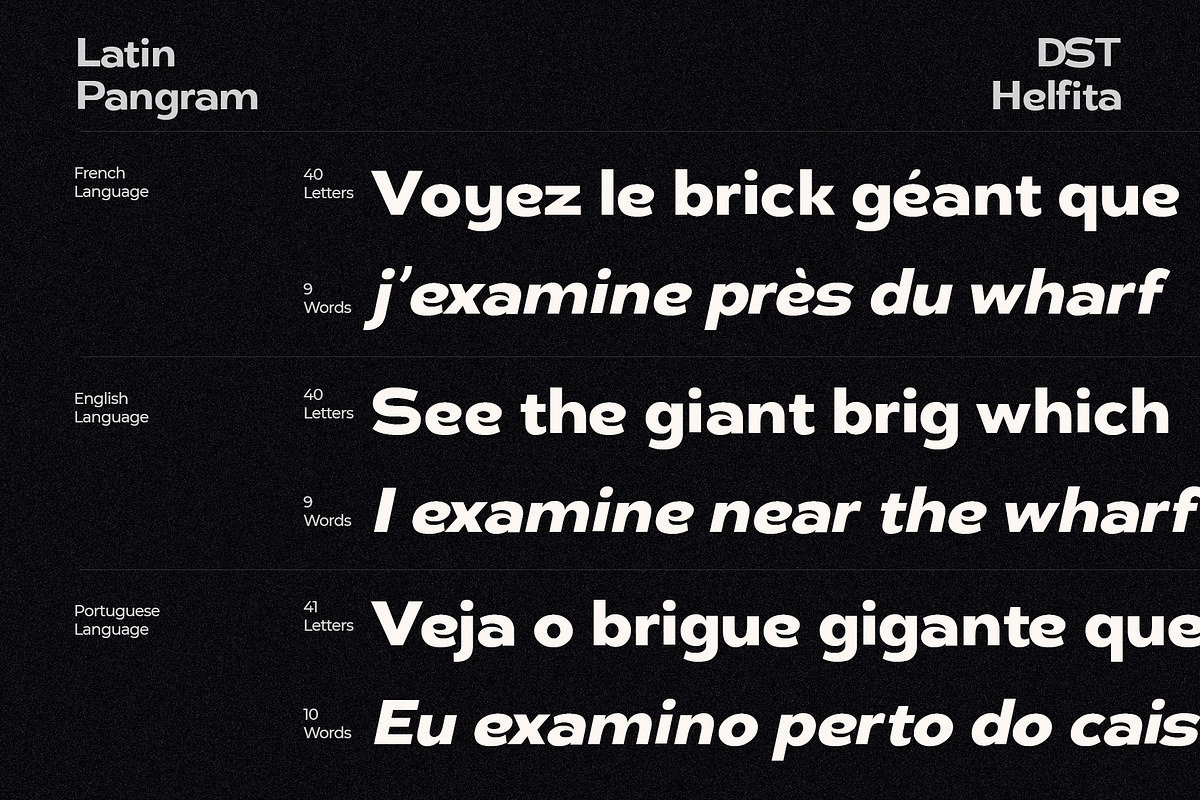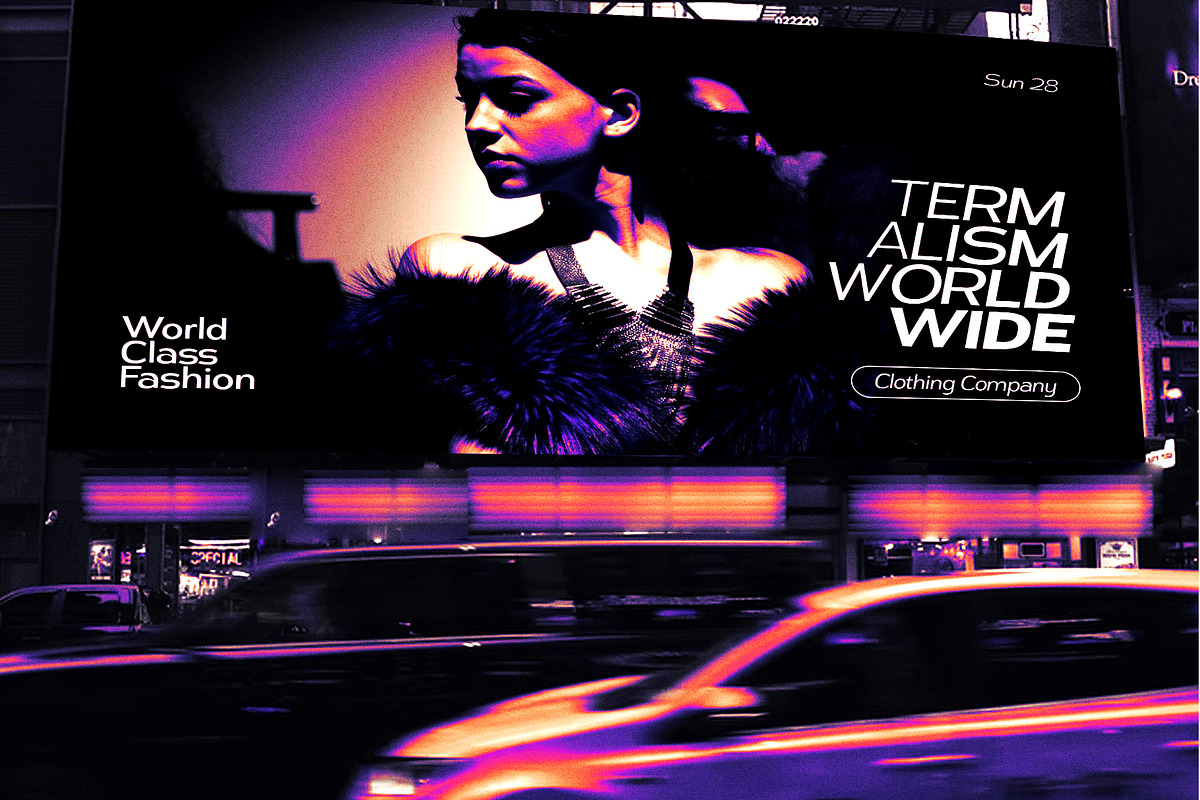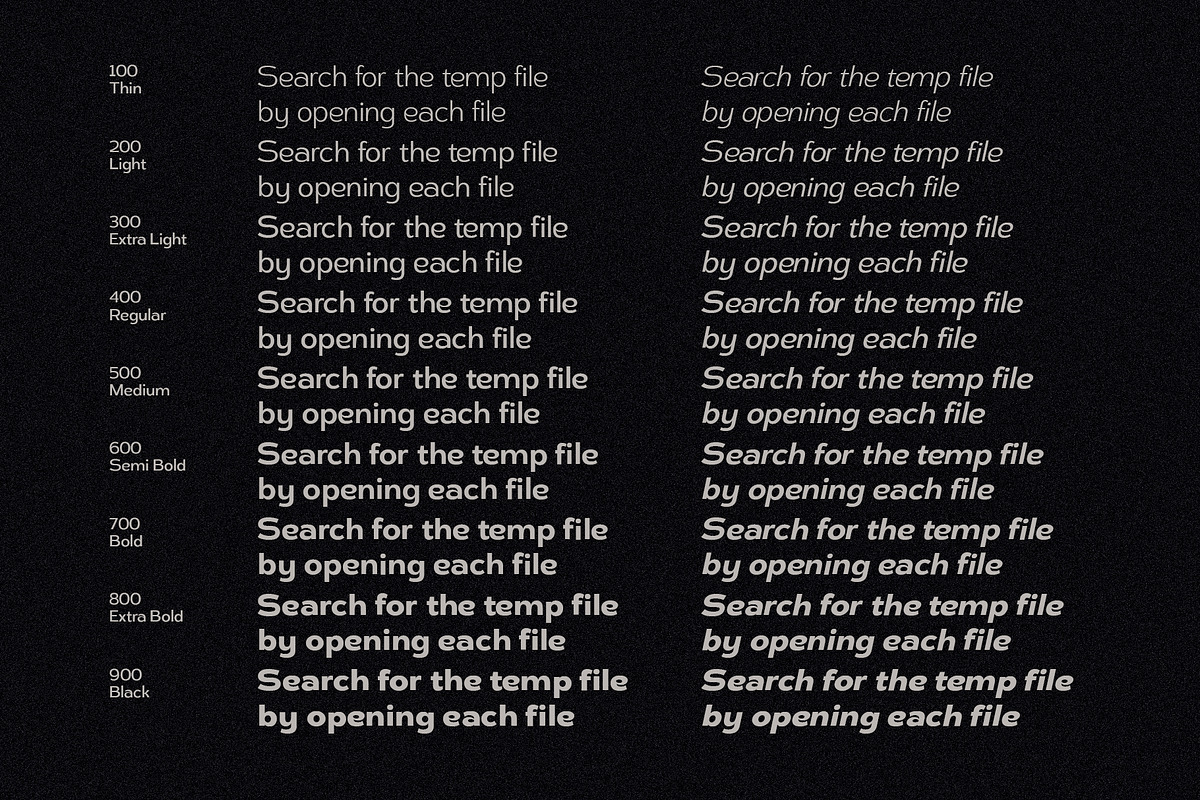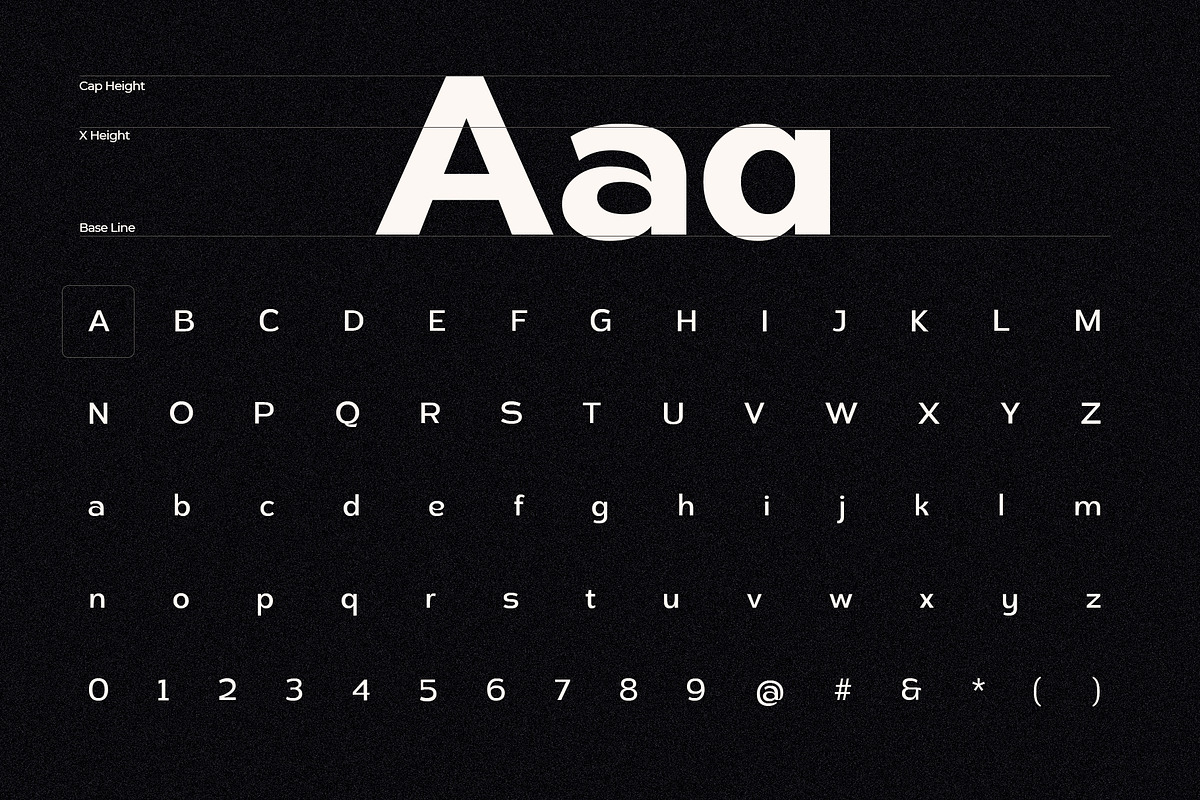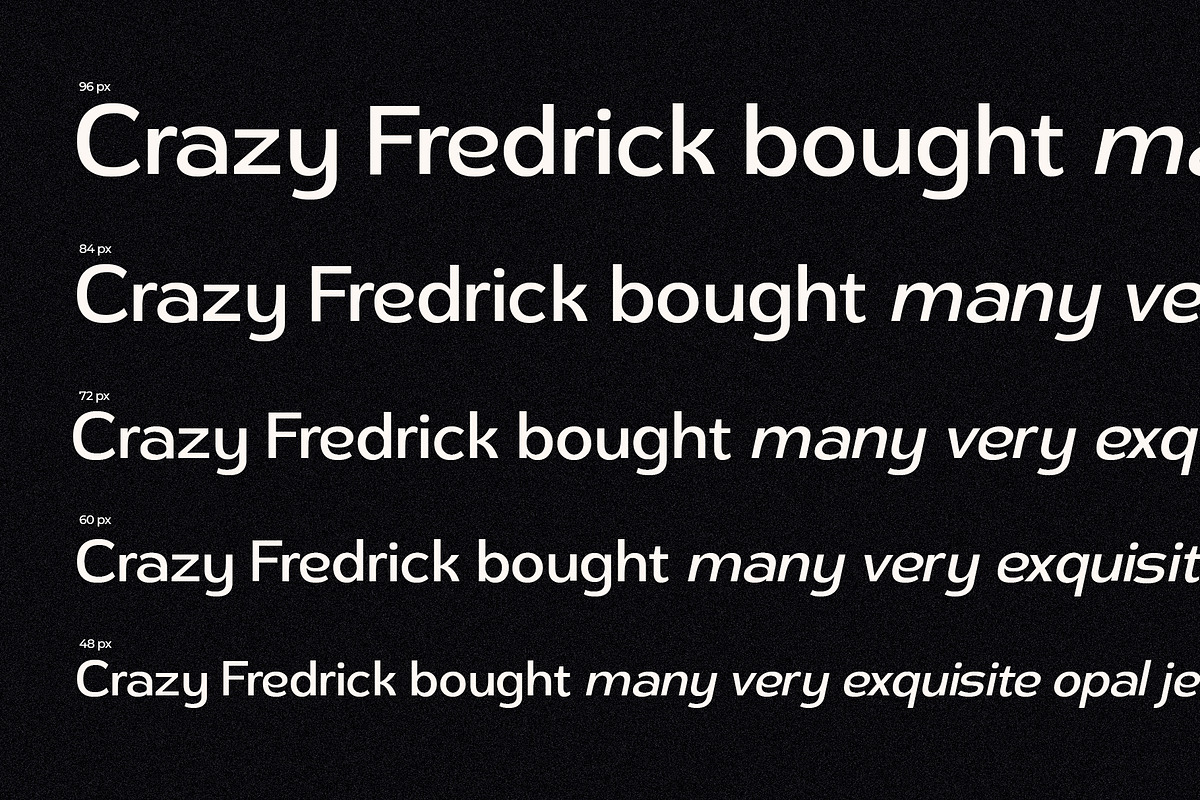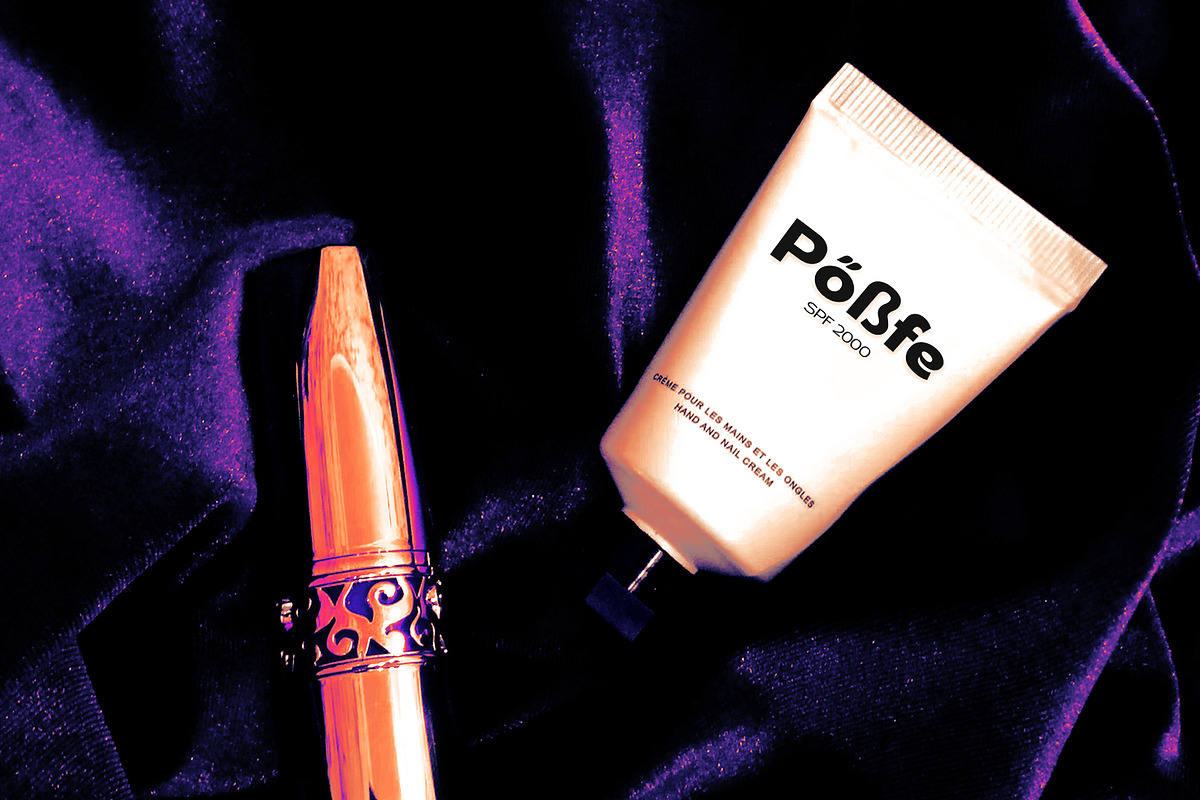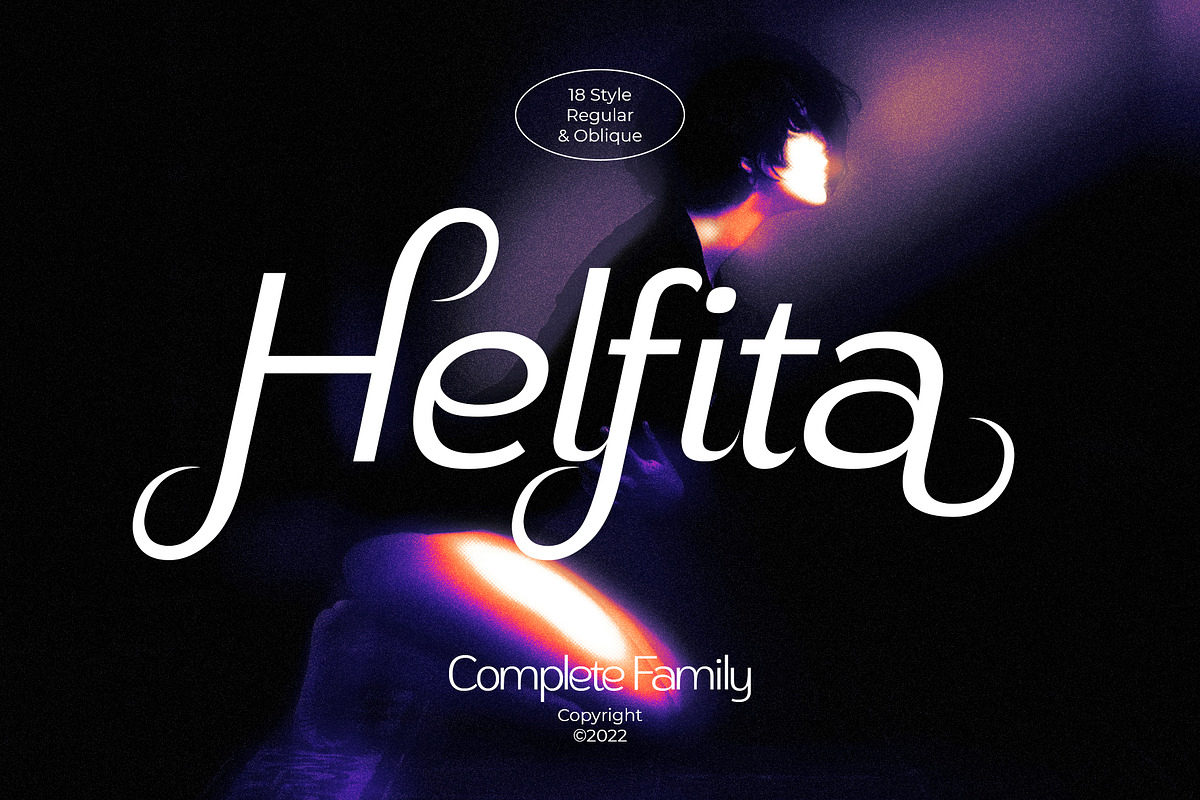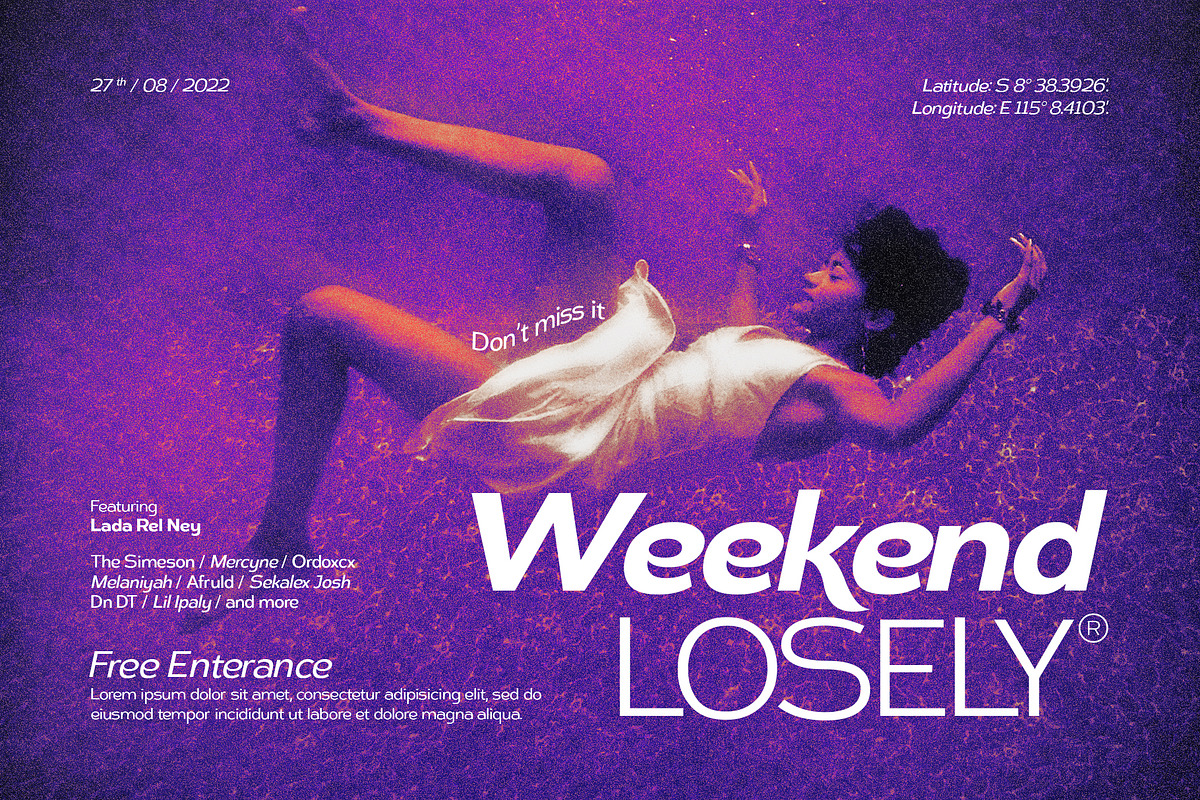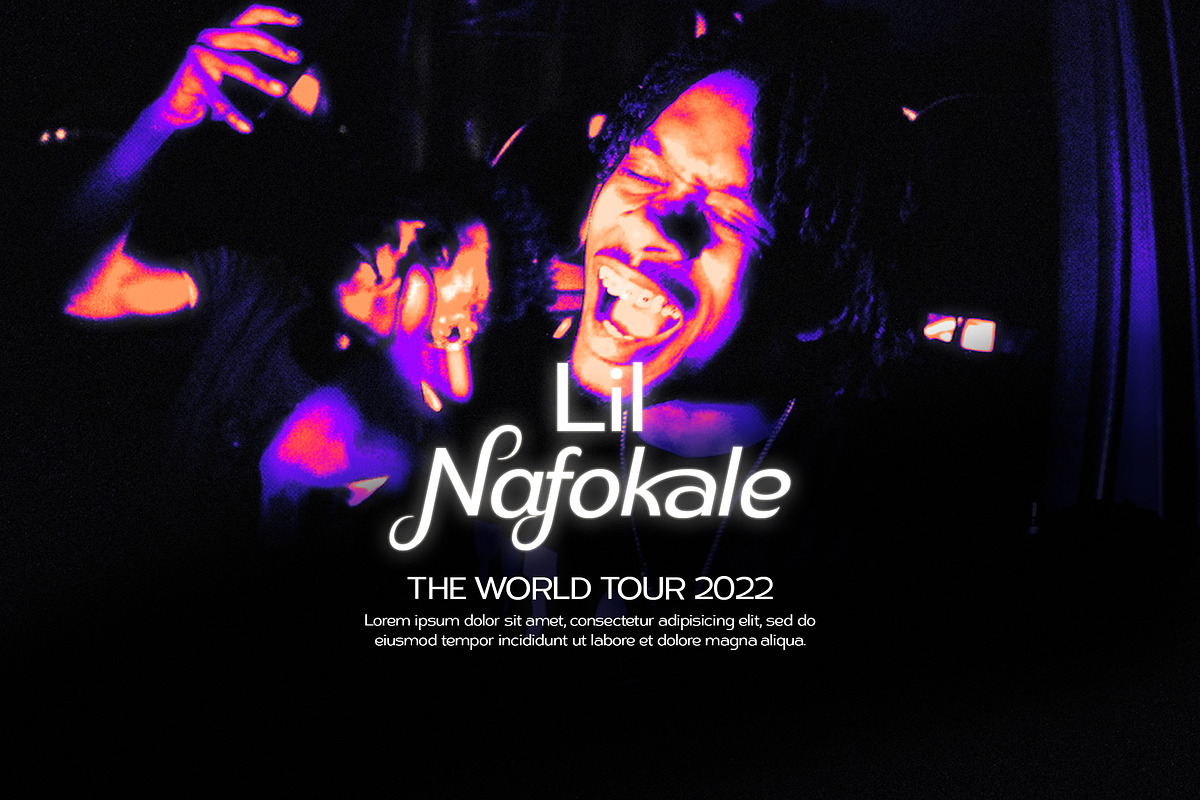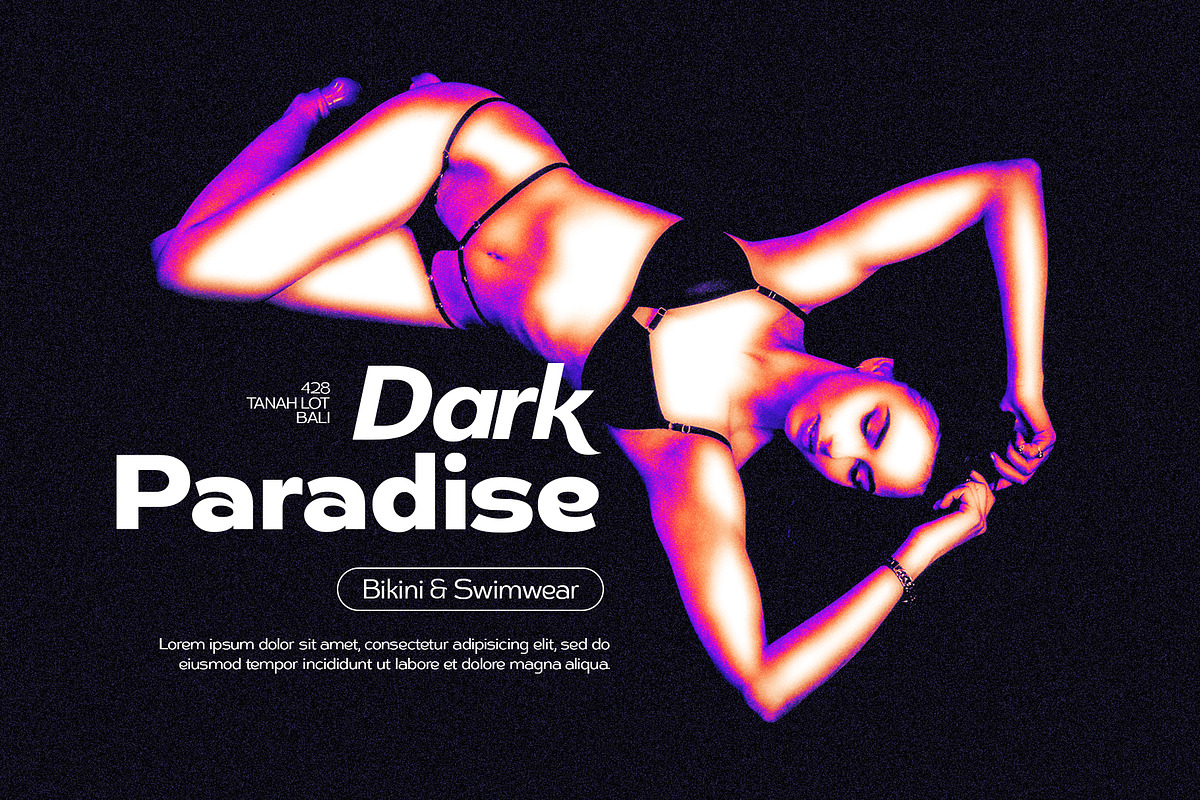
Helfita Sans Serif Family
The sans serif font is relaxed in style and can be applied to various designs for your needs. This font is packaged in a complete family with 18 subfamily styles; normal & oblique. OpenType's features are available and also support multi-language Latin Europe, Asia, and Oceania.